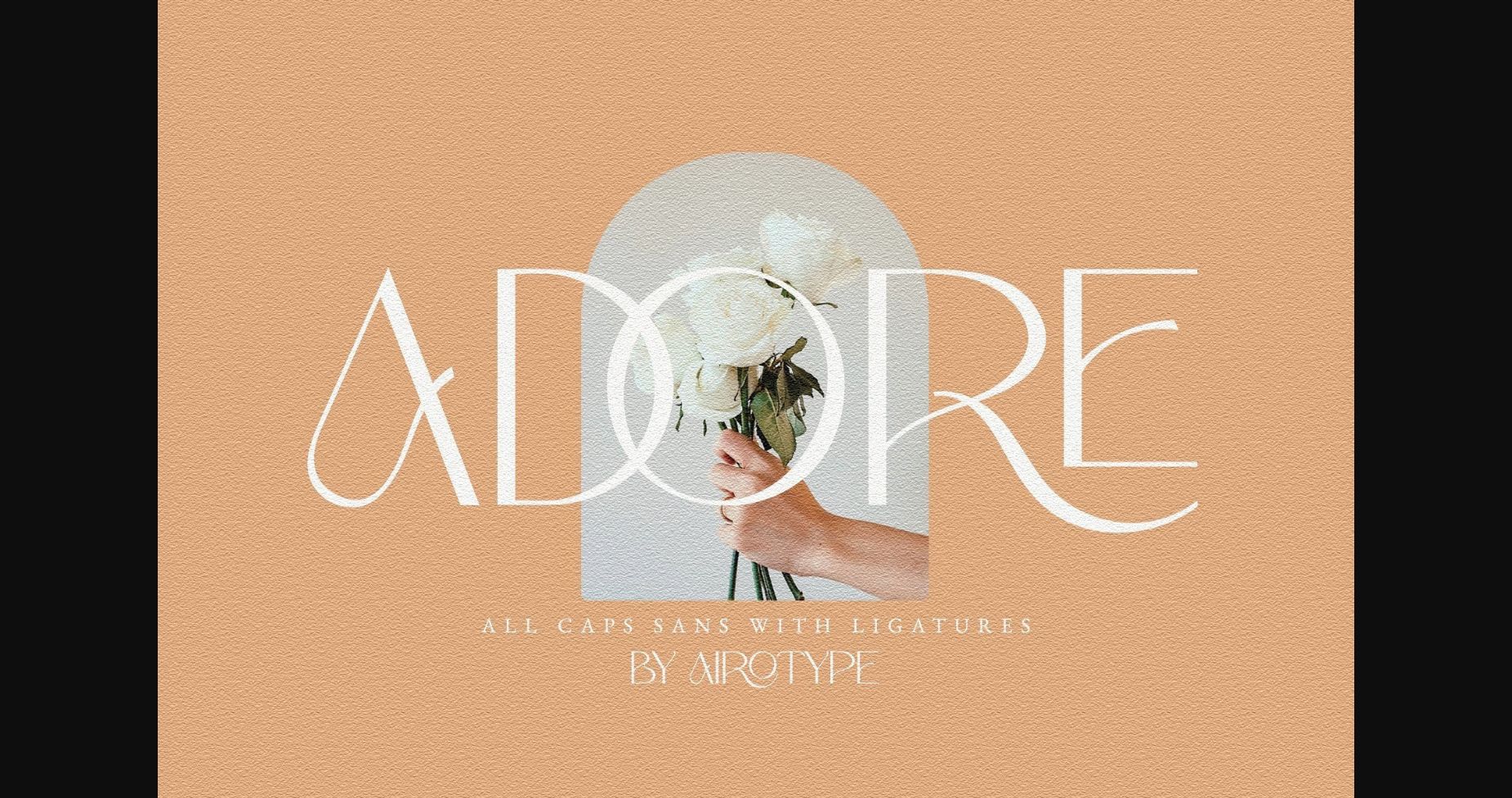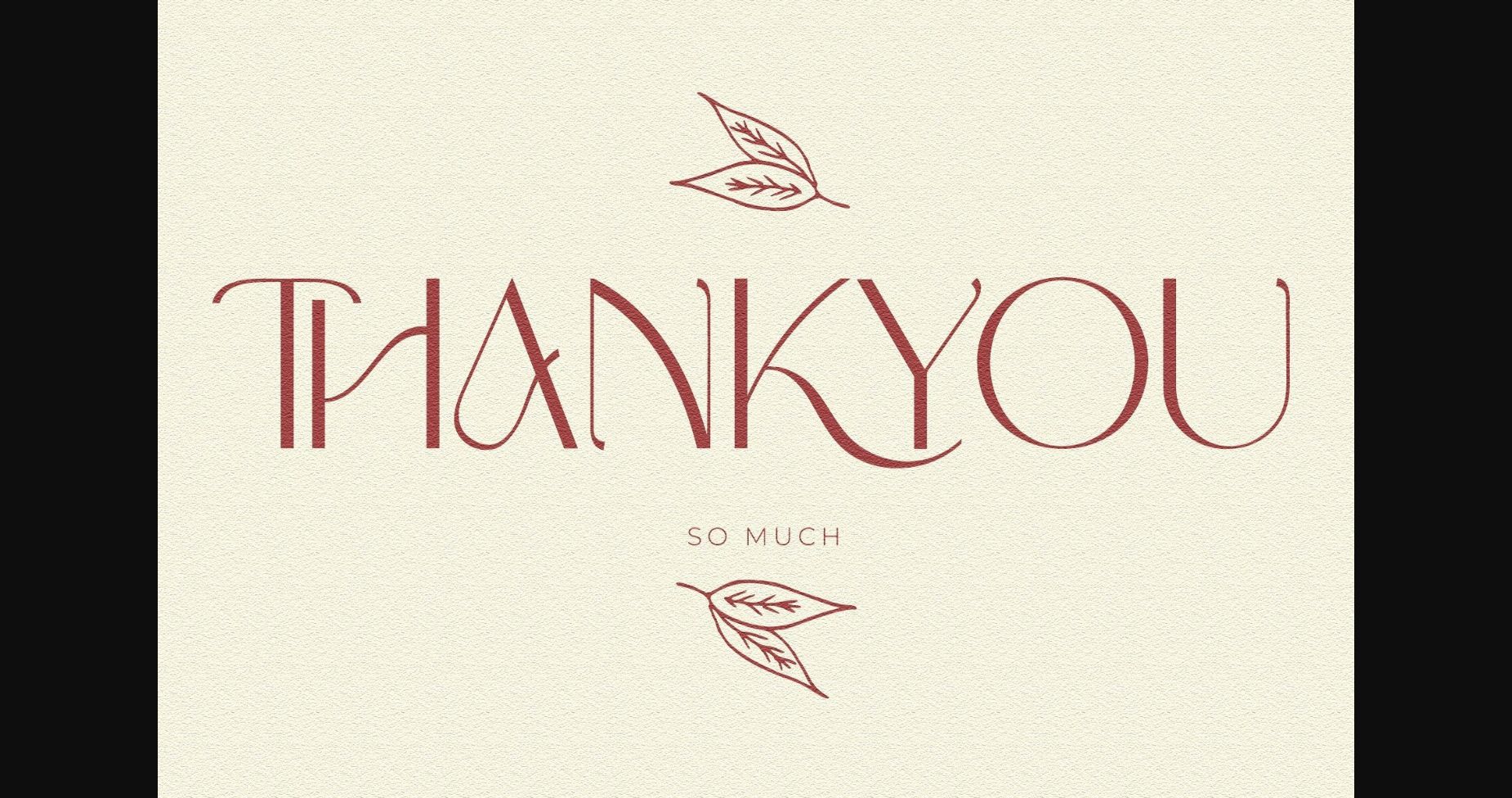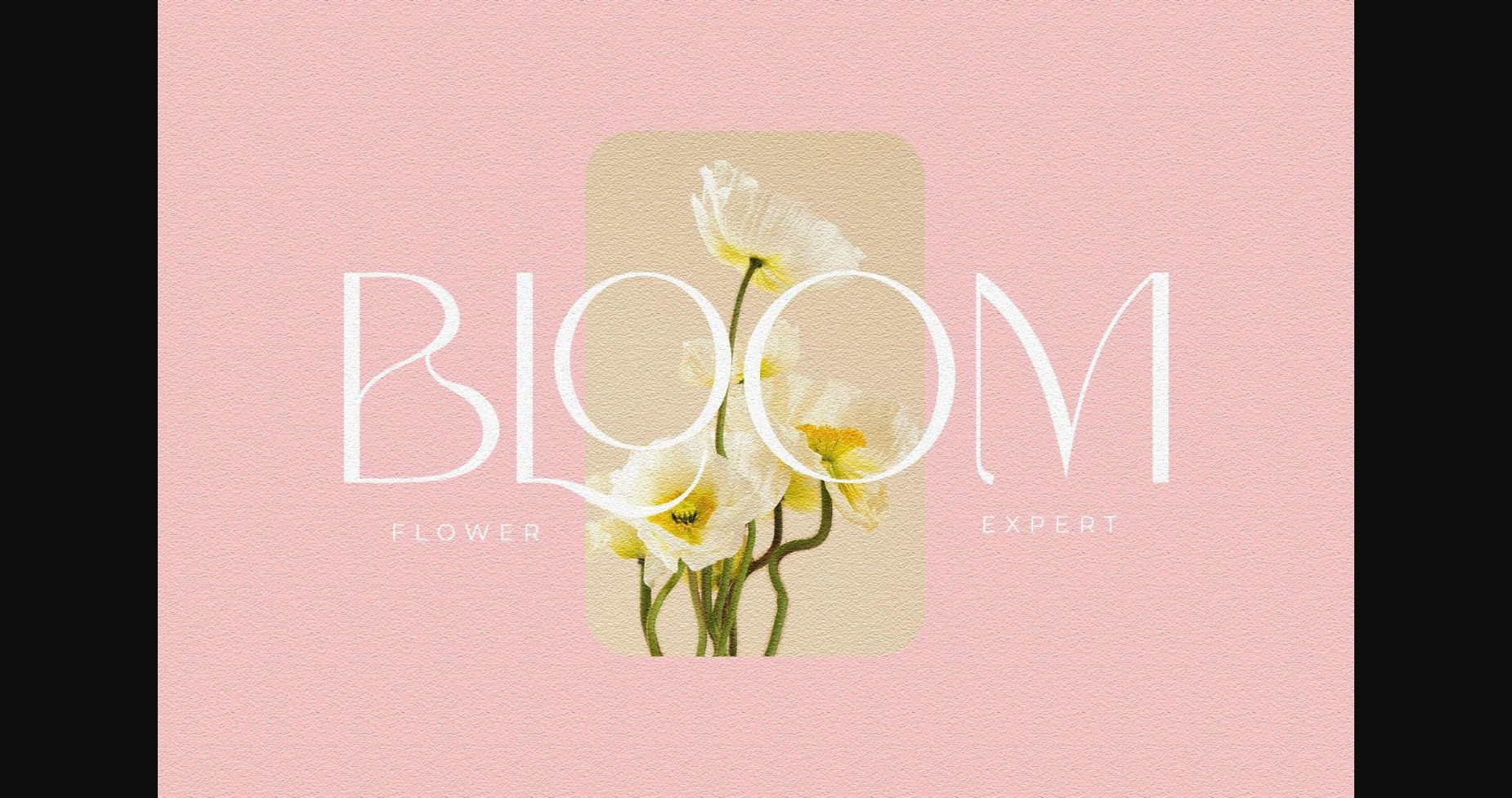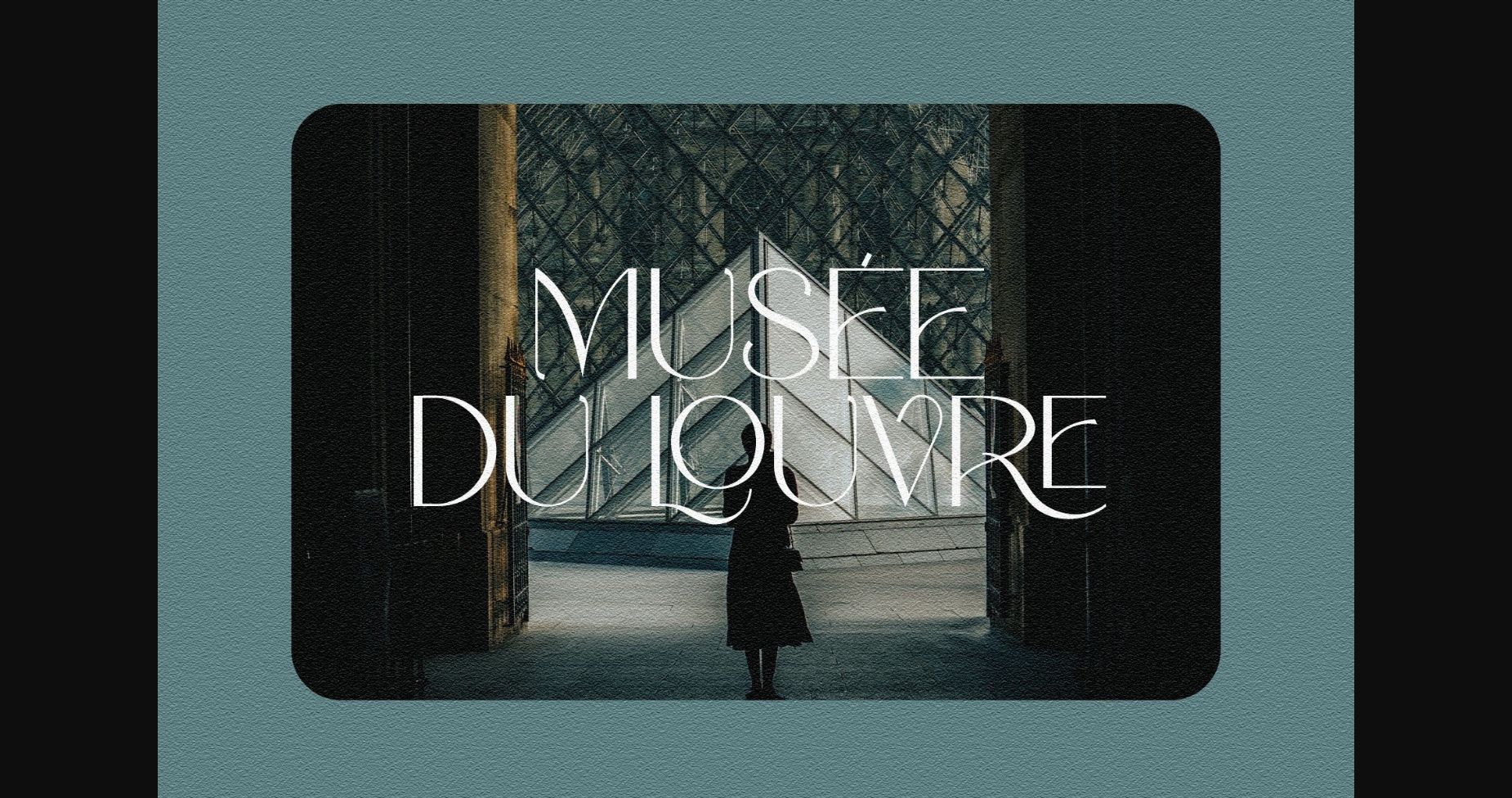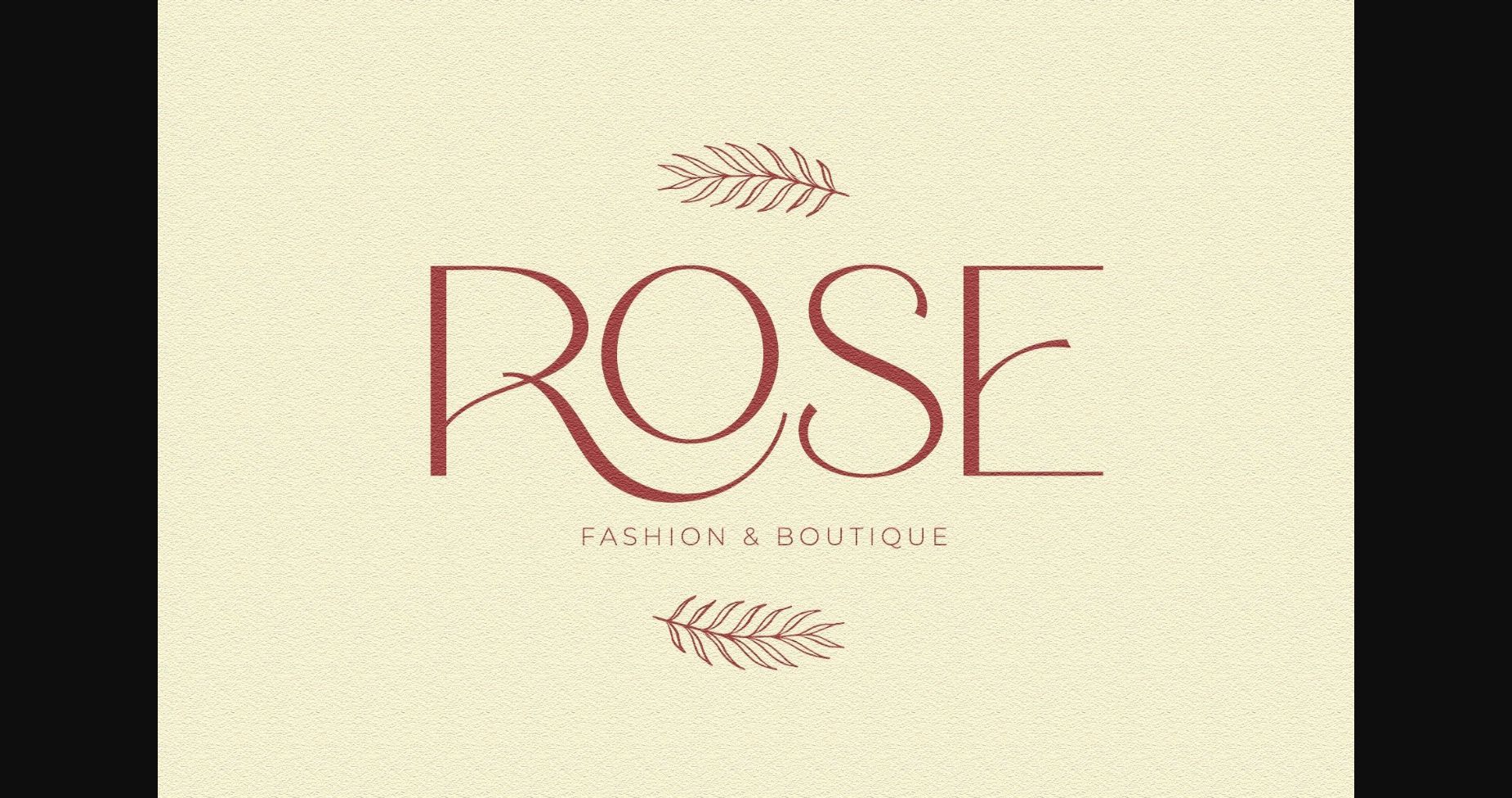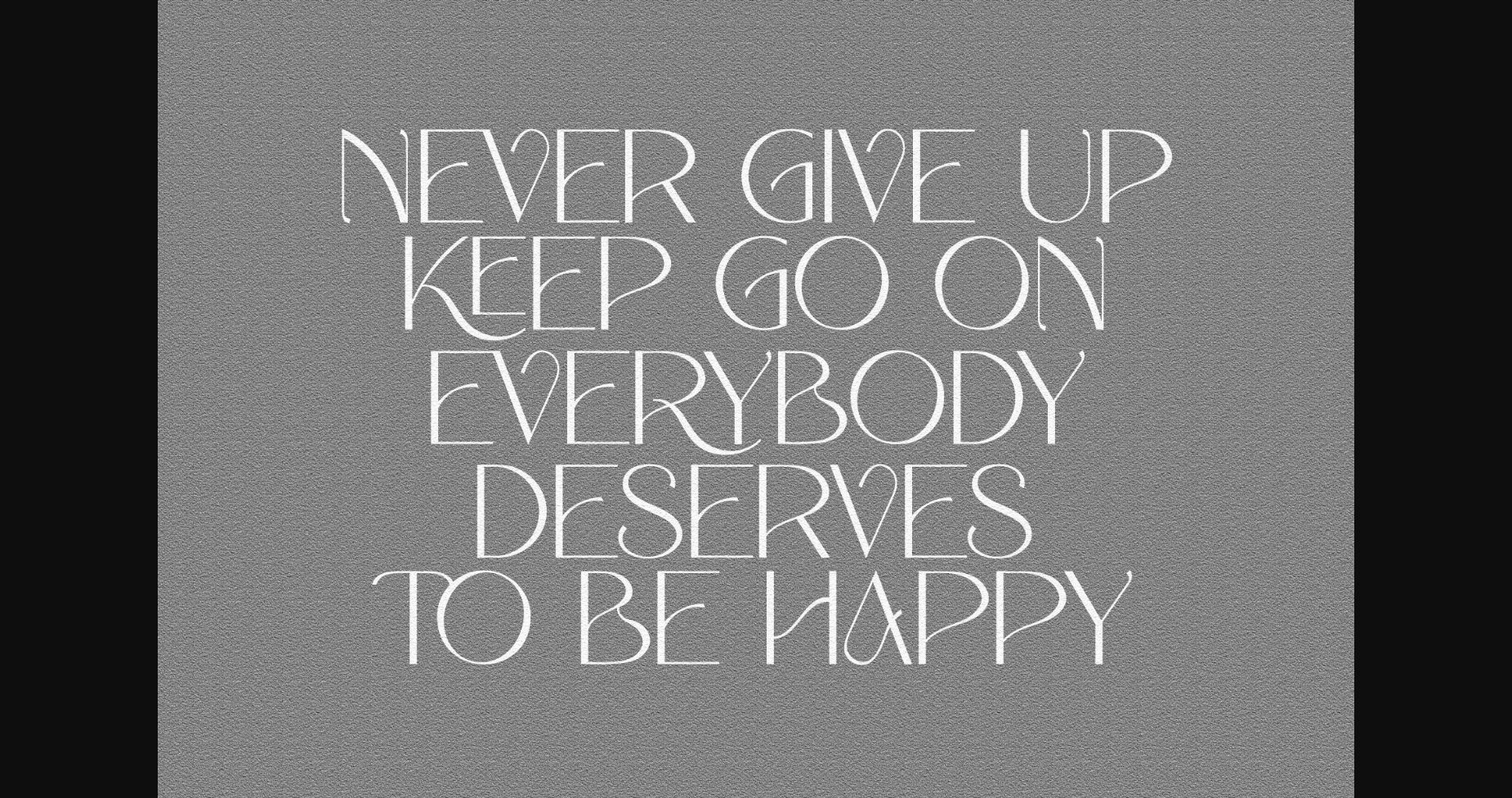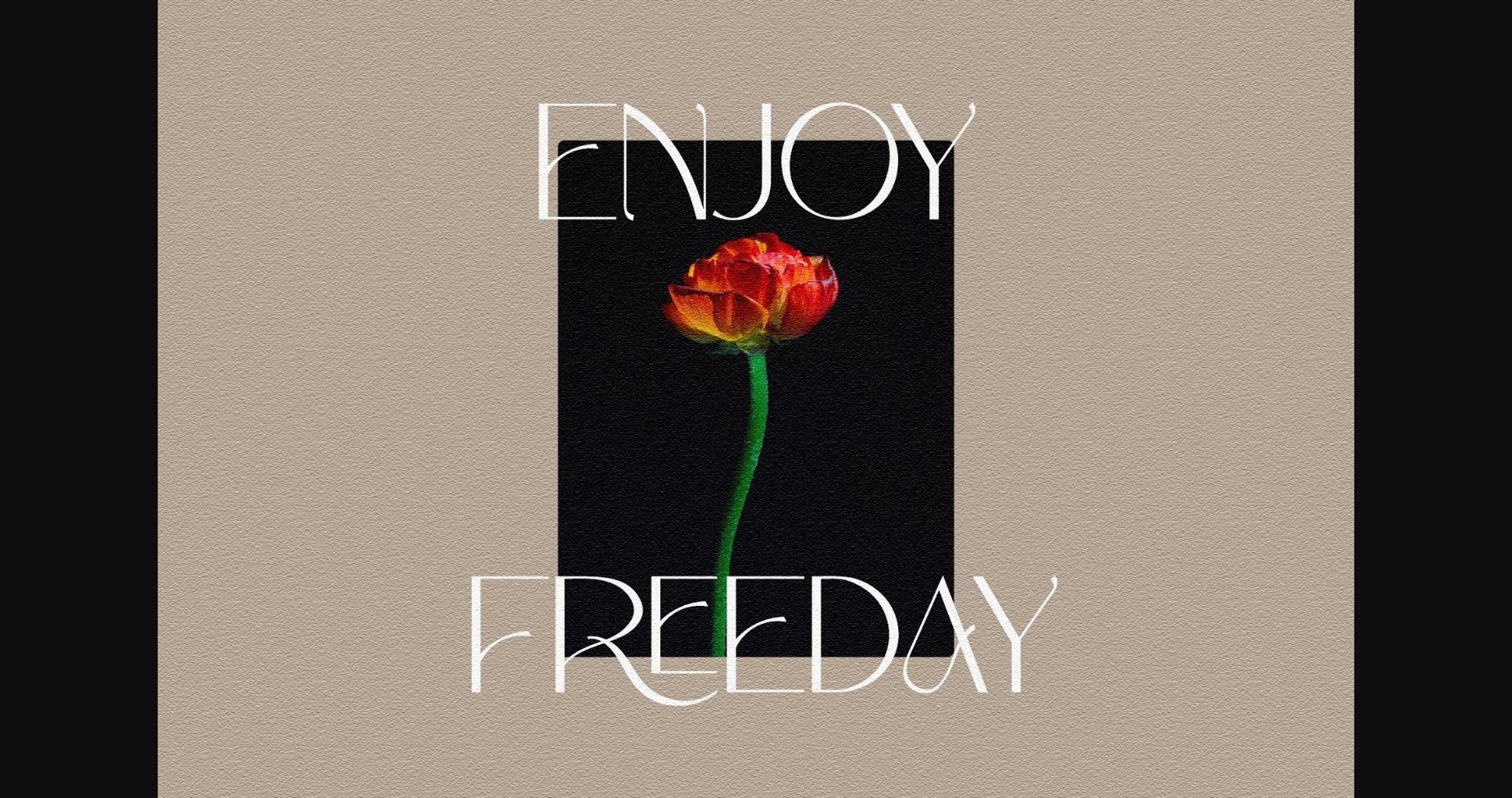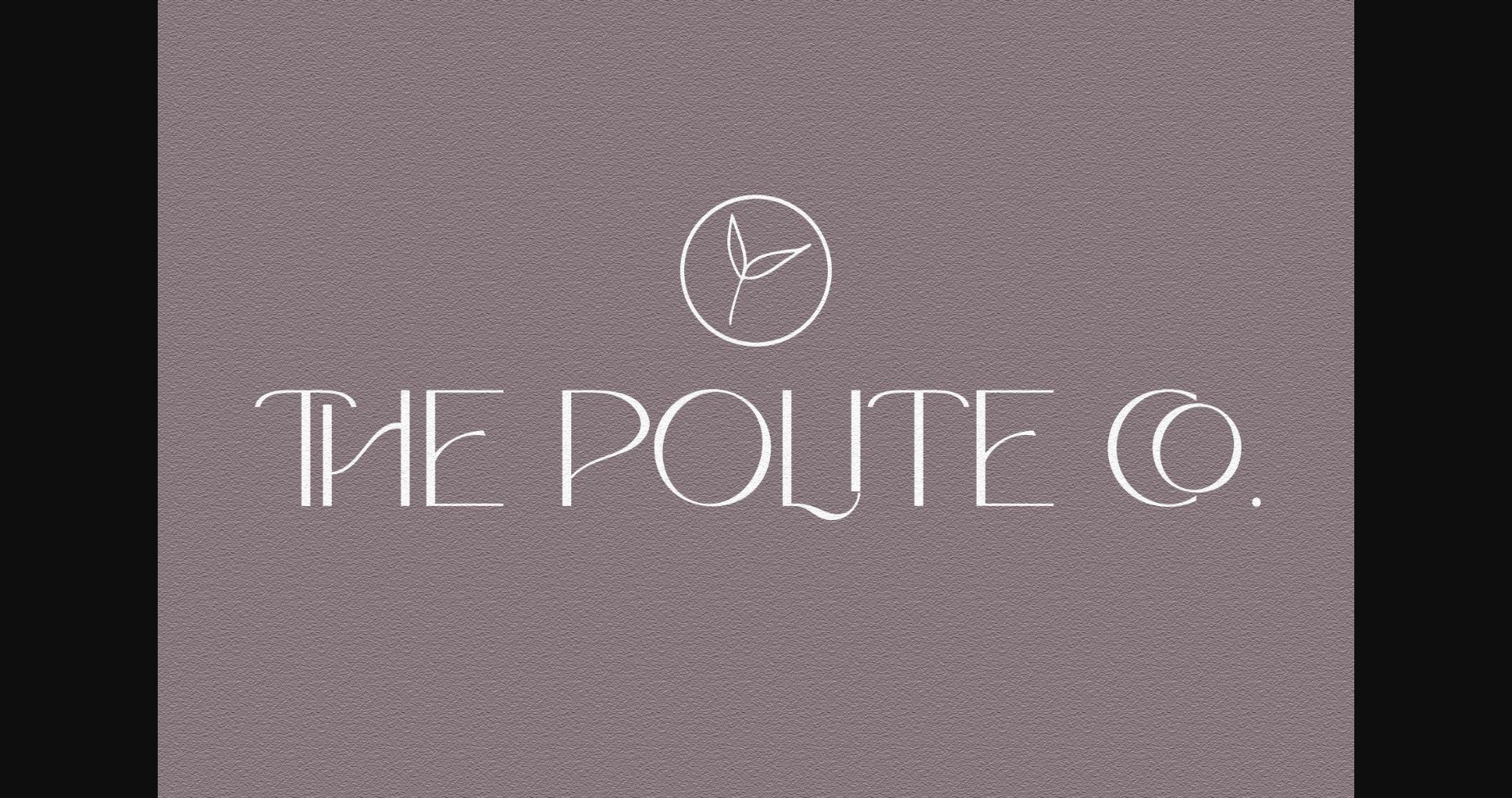
Adore Font
About Adore Font
Adore is a modern sans serif font with a thin style. This gorgeous all-caps font is suitable for your logo, wedding invitation, greeting card, branding, fashion, short quotes, and many other creations.